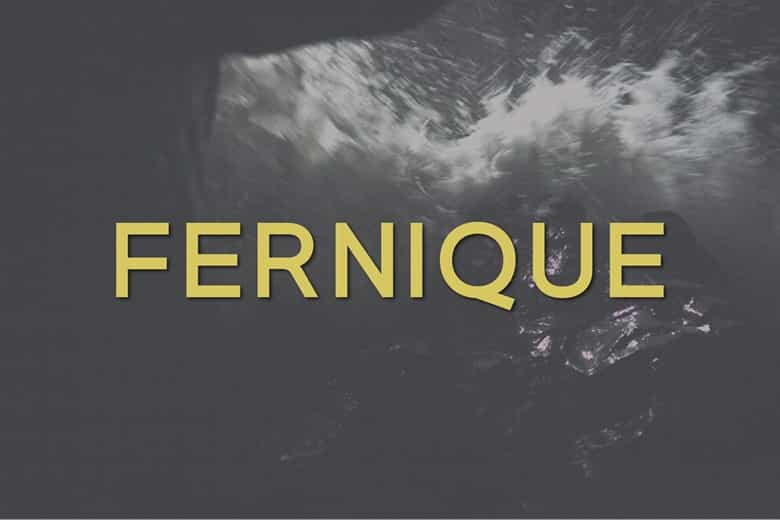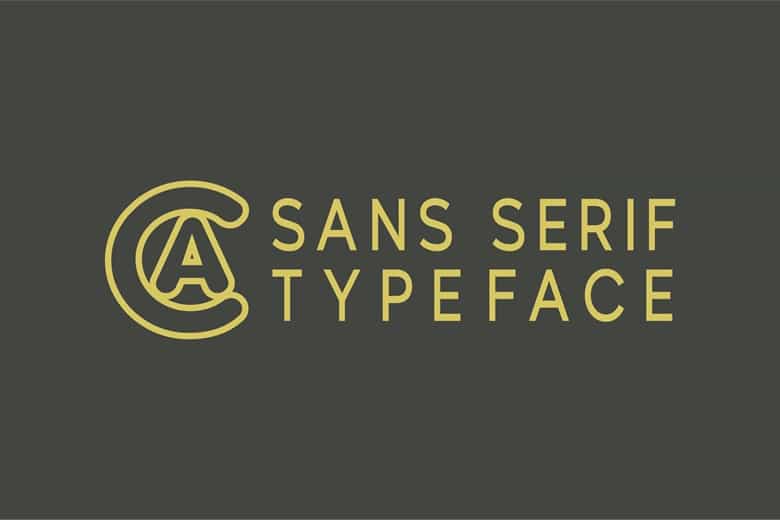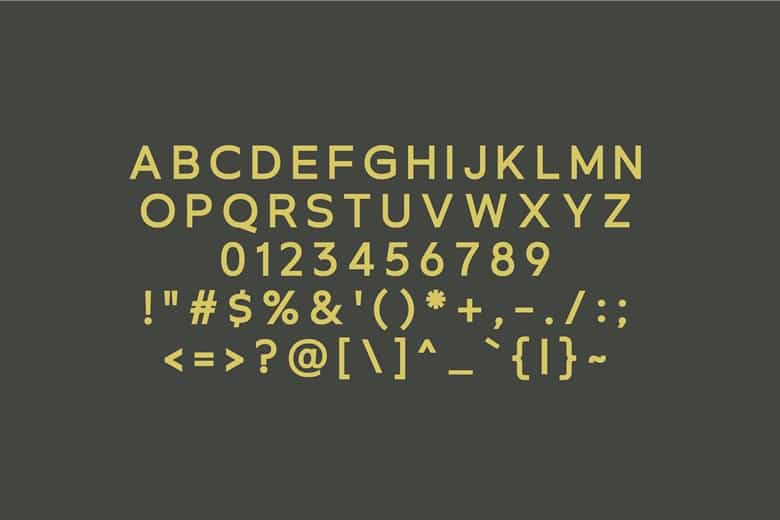
Fernique is an elegant sans serif font. An uppercase face that includes all numbers, a variety of punctuation and symbols. A flexible font that works well for logos, weddings, invitations, quotes, advertisements, print, magazines and much more.